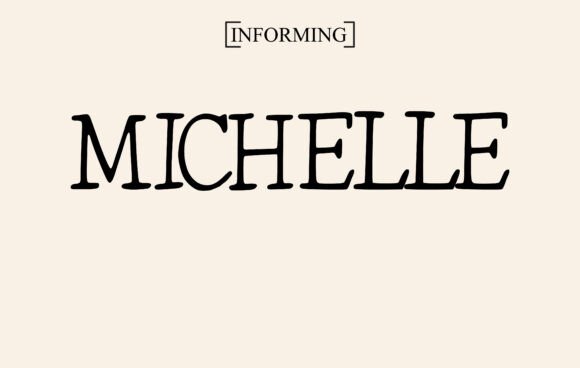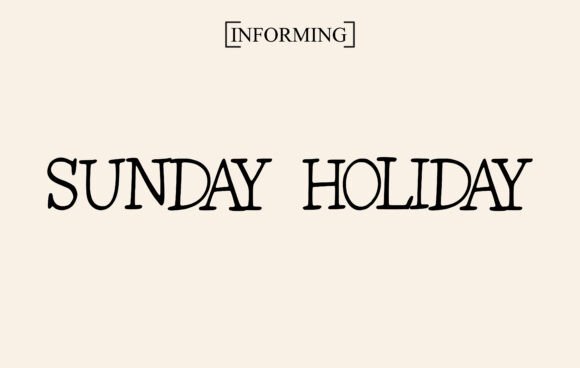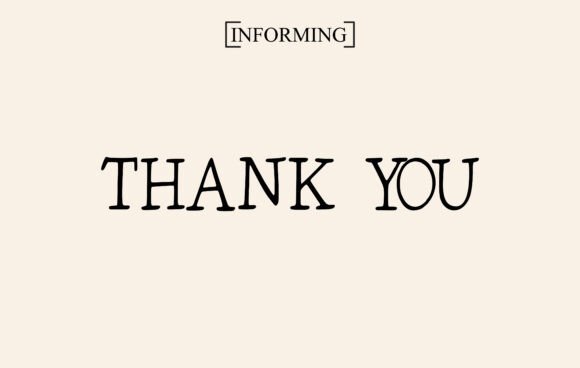
Michelle Font: A Modern Serif Typography for Elegant Branding
About the Michelle Font
Experience the unique personality of Michelle Font, a font designed for impact. Michelle is designed to be a true favorite; this font has the potential to take your creative ideas to the highest level
Michelle’s elegant and slightly playful personality makes it ideal for headlines, branding projects requiring a touch of sophistication, and short-form text on packaging or invitations. Its legibility shines in applications with limited text, but its delicate stroke weight isn’t suitable for extended body copy or UI elements where high readability is paramount.
For optimal pairings, consider complementing Michelle with a clean sans-serif like Lato for body text or a contrasting geometric sans-serif such as Futura for a modern feel. A script font like Great Vibes could add a touch of handwritten charm to invitations or logos using Michelle as the main headline font.
Michelle projects a refined, yet approachable aesthetic, best suited for brands aiming for a balance of style and approachability – think high-end stationery, boutique businesses, or products targeting a discerning but not overly formal audience.
Michelle Font Usage Examples
Michelle Font Example